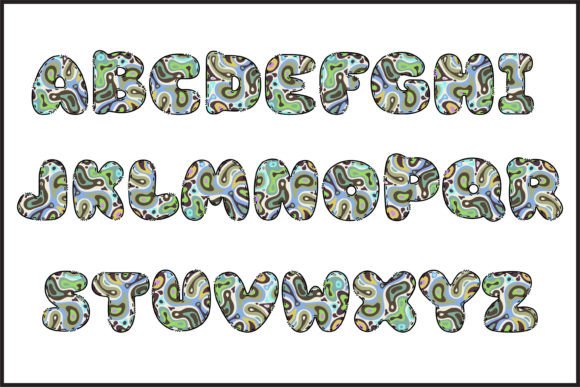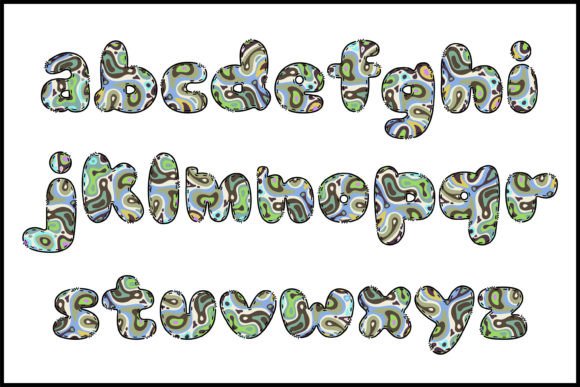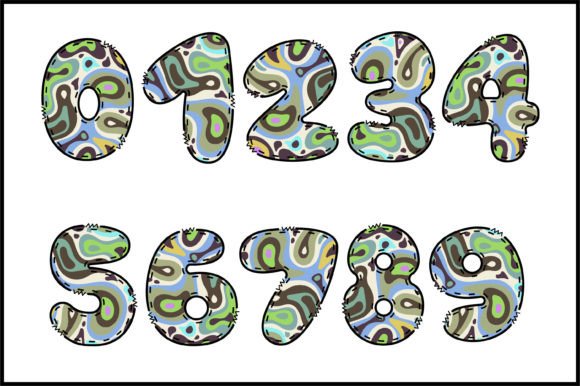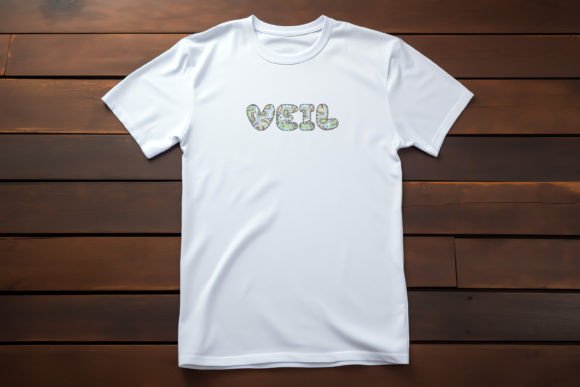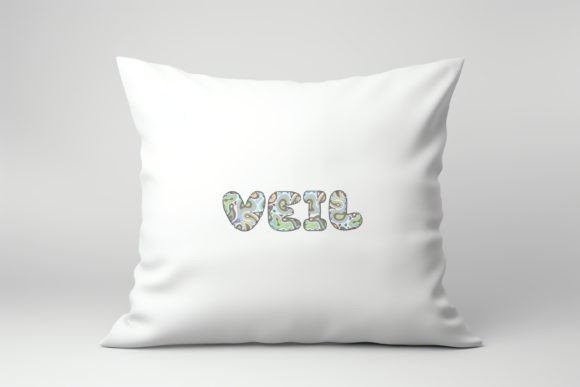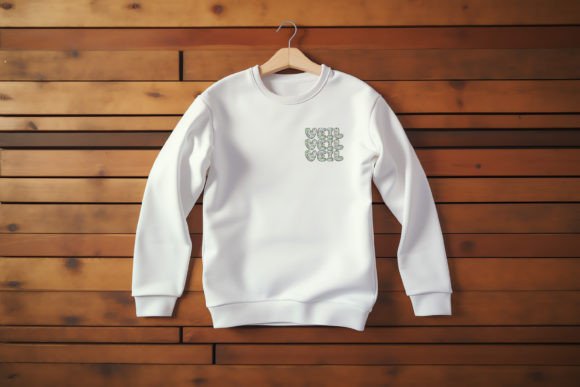
The Groovy Font: A Playful and Artistic Favorite
I’ll never forget the time I was working on a children’s book project, trying to find the perfect font to bring the story to life. The client wanted something whimsical, colorful, and easy to read, but I was coming up blank. That’s when I stumbled upon the Groovy Font, and it was love at first sight! ✨
These fonts are often used in designs that aim to convey a playful or artistic feel, such as children’s books, posters, invitations, greeting cards, and more. For instance, Groovy is perfect for children’s books as it is whimsical, colorful, and easy to read, creating an engaging reading experience for young audiences.
- ✨ Whimsical and playful design that’s perfect for creative projects
- ✅ Easy to read, even for young audiences
- 🎨 Highly customizable with OpenType features and glyphs
- 🌈 Available in a range of colors and styles to suit different designs
While I adore the Groovy Font, there are a few things to keep in mind: 🤔
- ⚠️ Some characters may not be suitable for formal or professional designs
- ⚠️ Limited availability of certain special characters or glyphs
The Groovy Font was designed with one goal in mind: to bring a playful and artistic feel to creative projects. Inspired by the funky and colorful designs of the 1960s and 1970s, the designer aimed to create a font that would make designs pop with personality. 💥
According to the designer’s notes, the Groovy Font was created with the intention of making it easy to read and fun to use. The result is a font that’s perfect for designs that need a little extra personality.
Q: What type of projects is Groovy Font best suited for?
A: Groovy Font is perfect for creative projects that need a playful and artistic feel, such as children’s books, posters, invitations, and greeting cards.